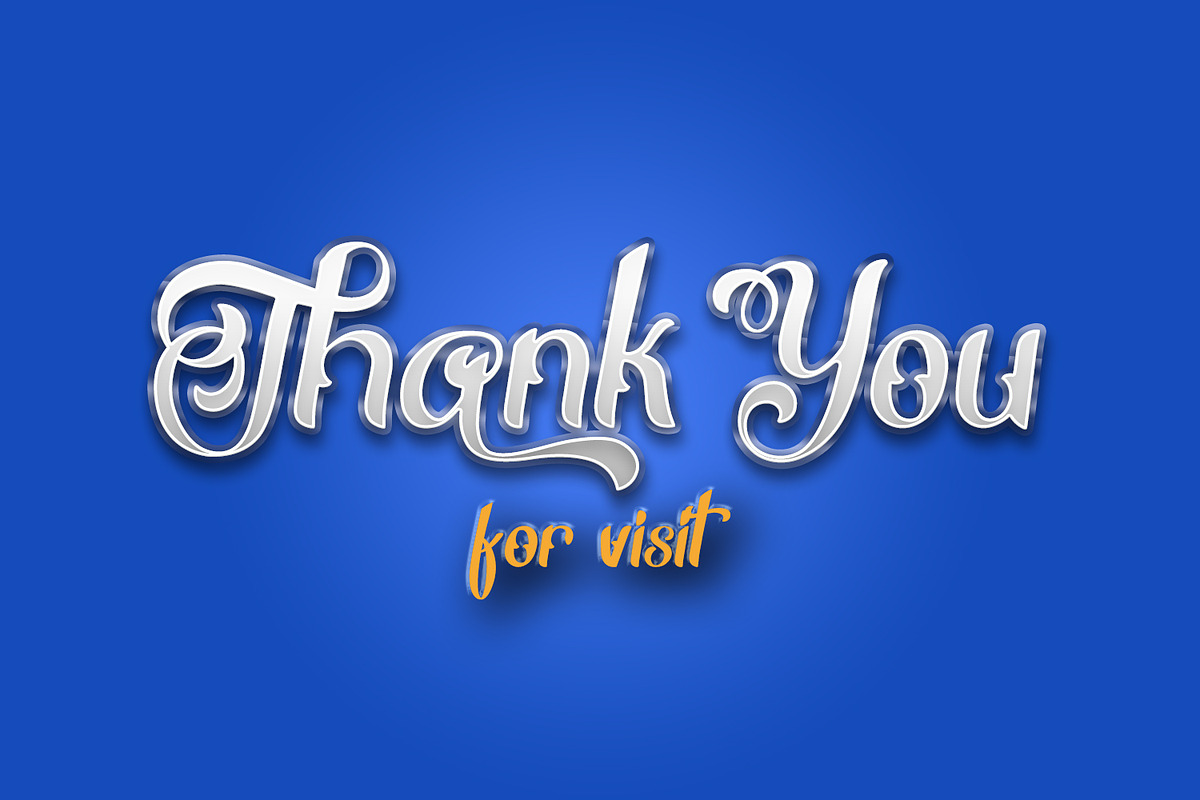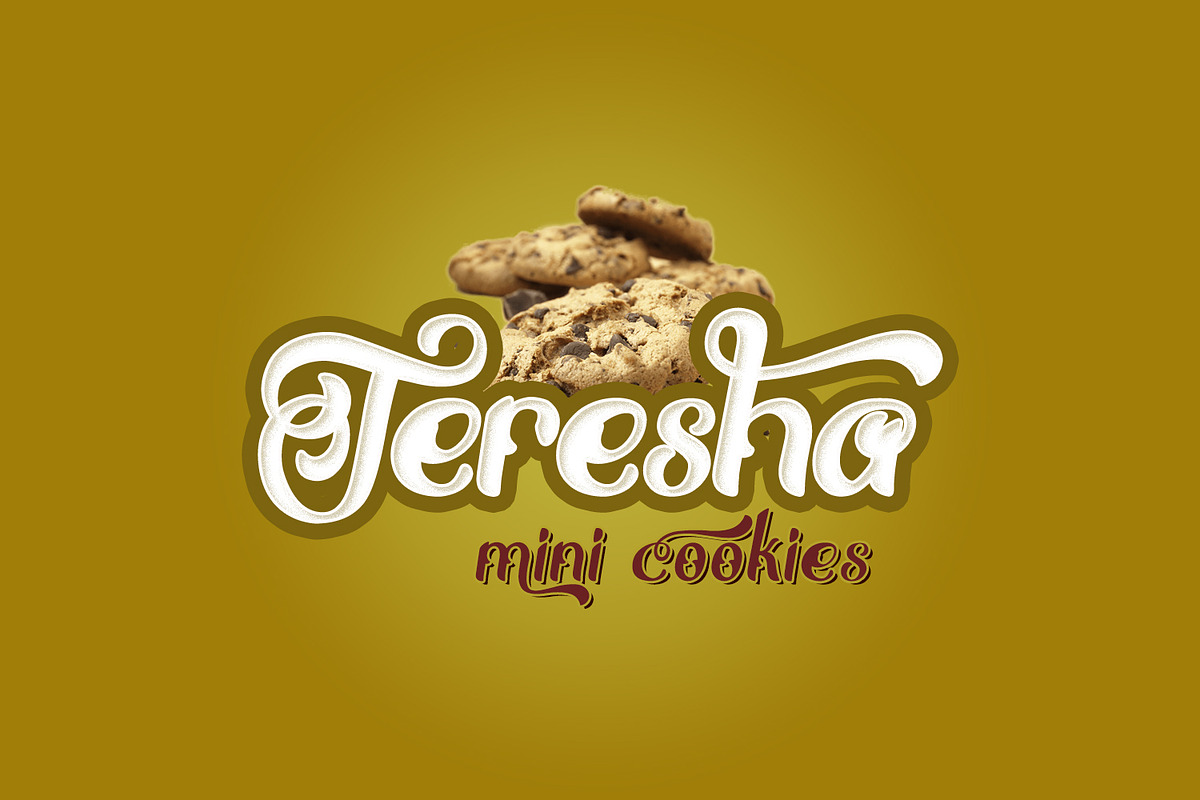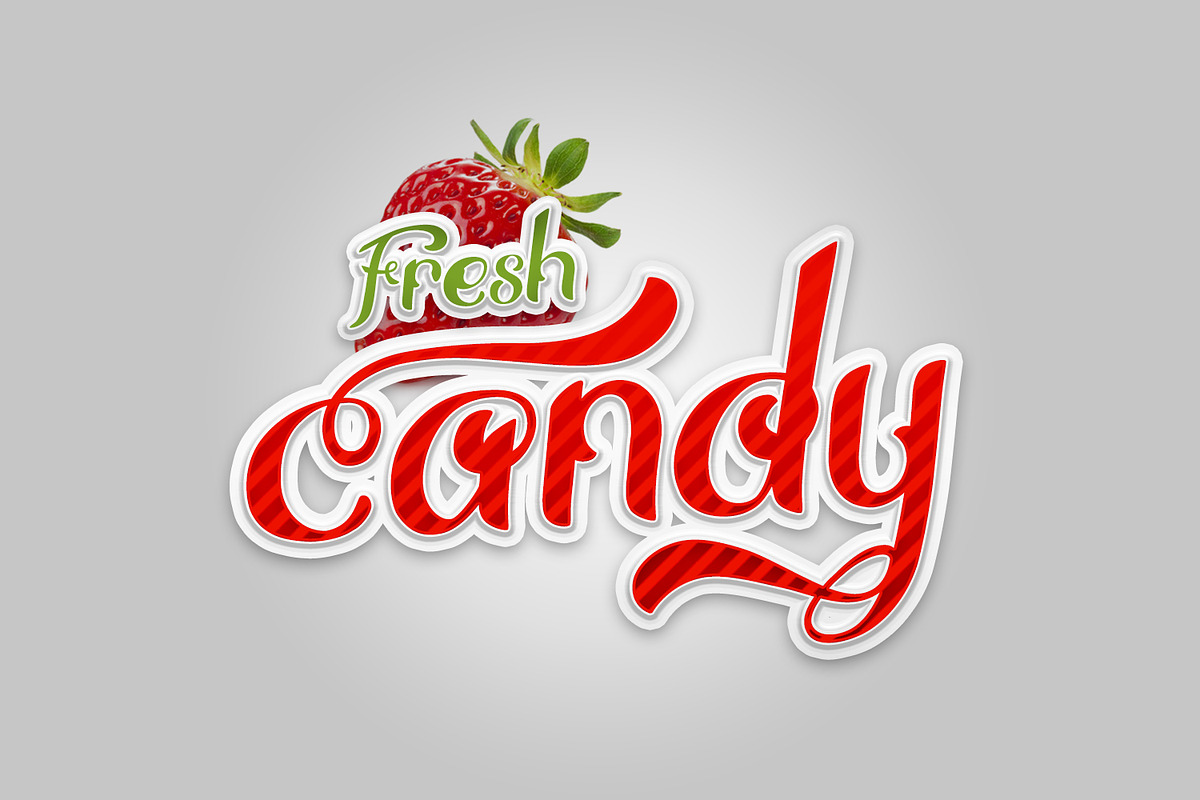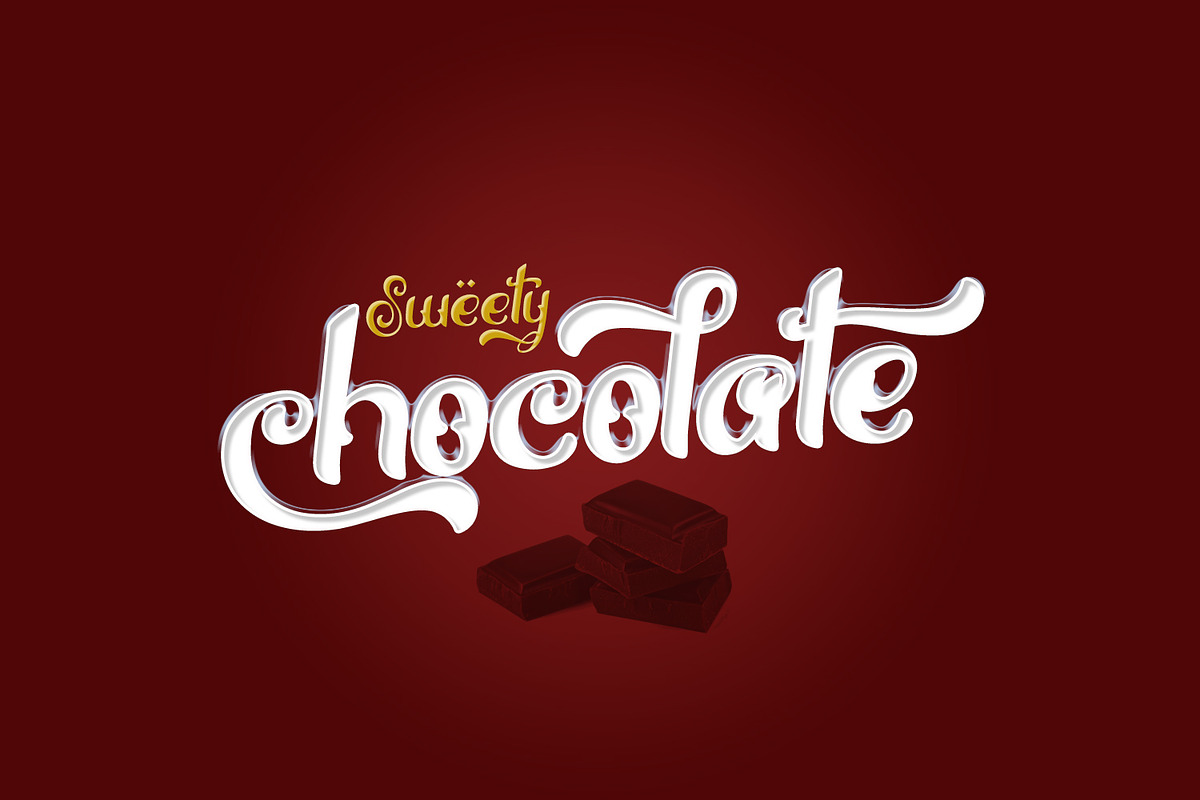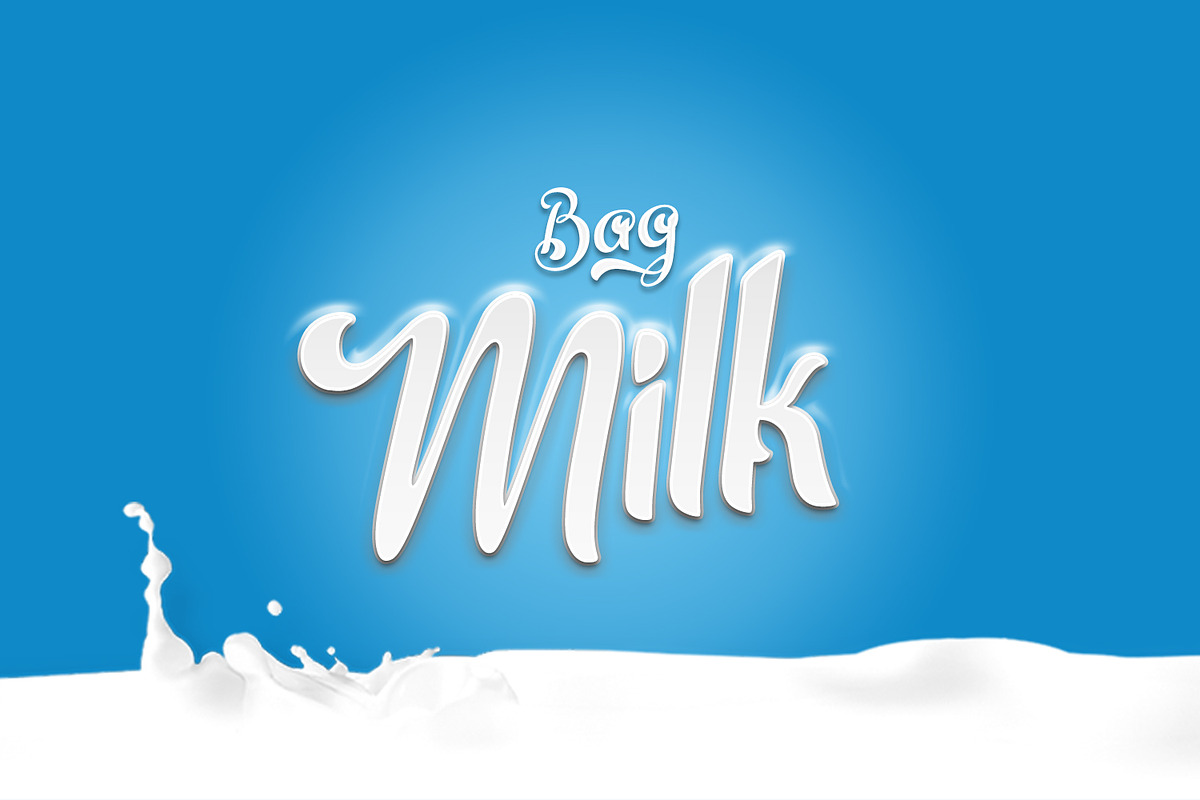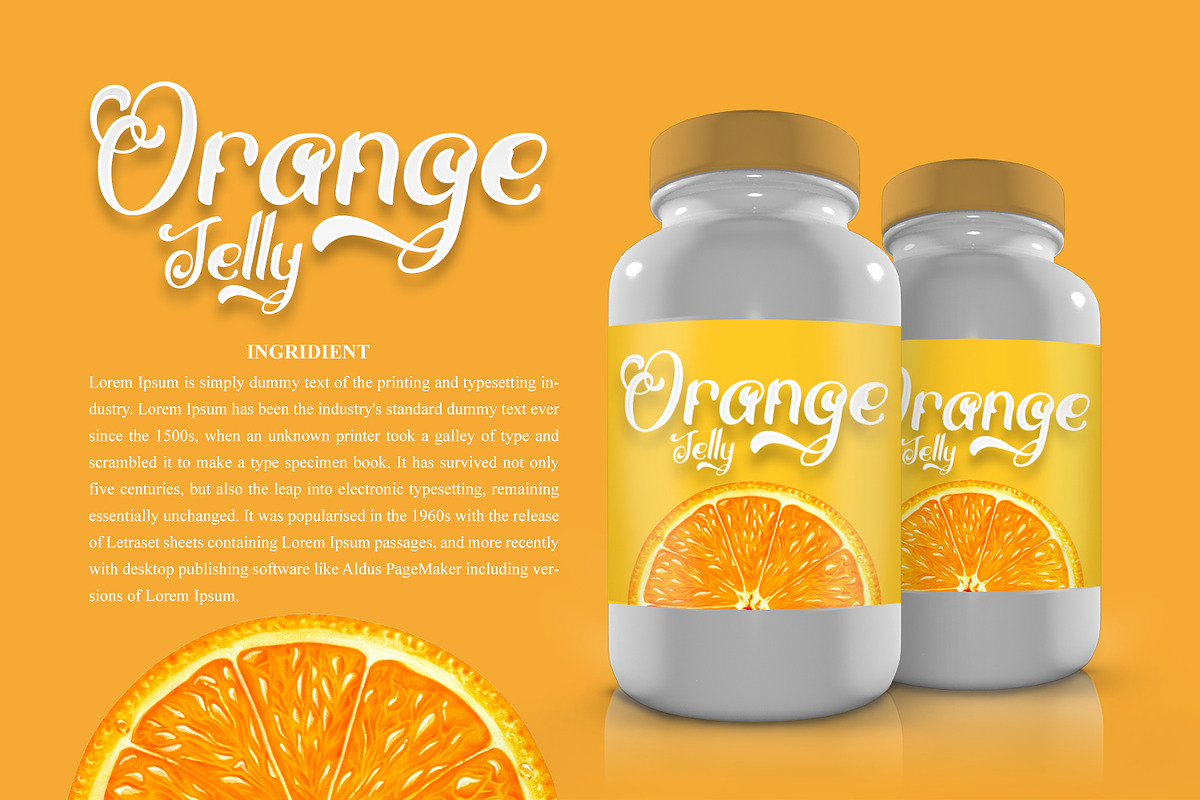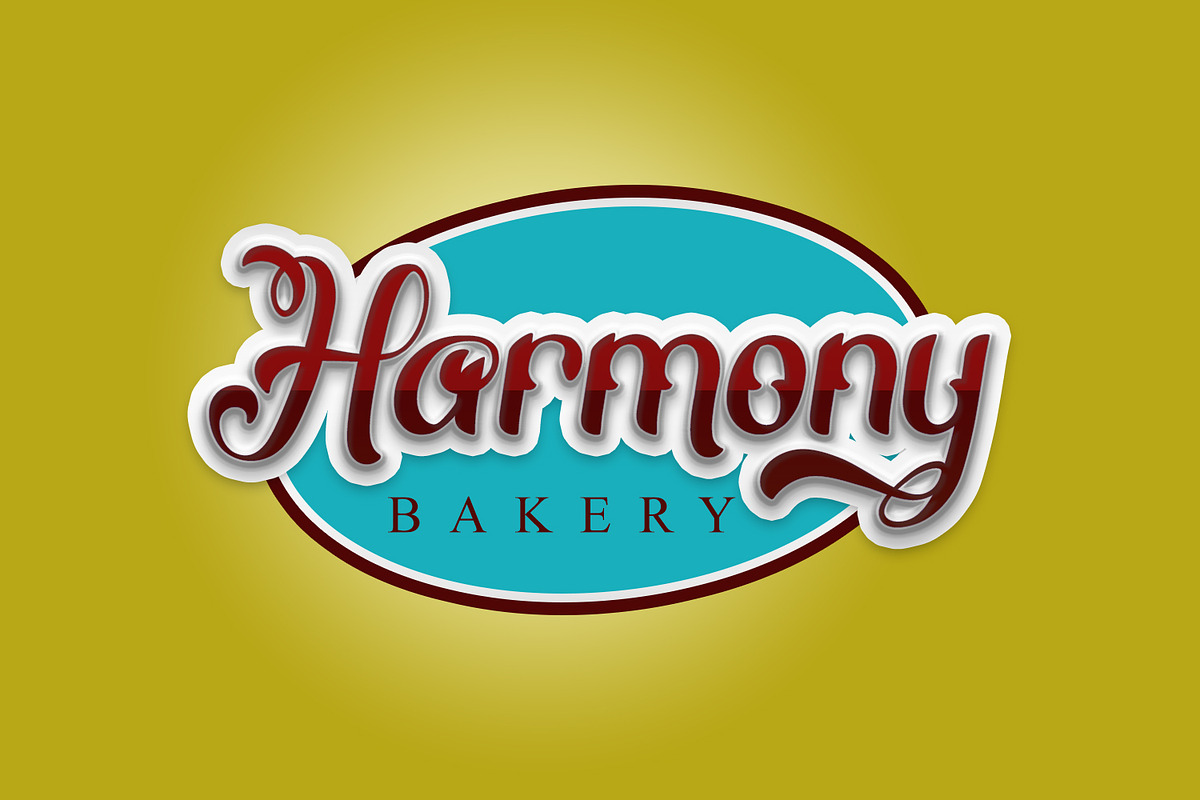
Thrones - Classic Typeface
Really excited to introduce Thrones is a bold classic typeface with gorgeous design and makes this font suitable for your any project design.
Thrones - Classic Typeface by madeDeduk fits naturally into Branding, posters, packaging, typography.